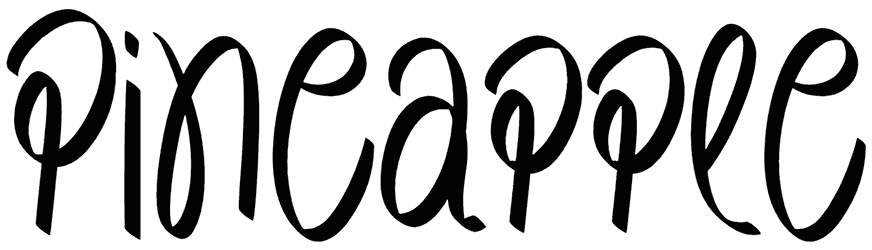
Pineapple Font
Pineapple is an energetic font that shines in front of any eye. This handwritten font has a playful style, making it applicable in various situations, such as posters, magazines, and postcards, although it does not support uppercase letters.
The Pineapple font supports a mixture of lowercase and uppercase letters with a curvy, interesting form, giving your audience a memorable experience. So press the download button without hesitation to get this handwritten font if your goal is to beat your competition.